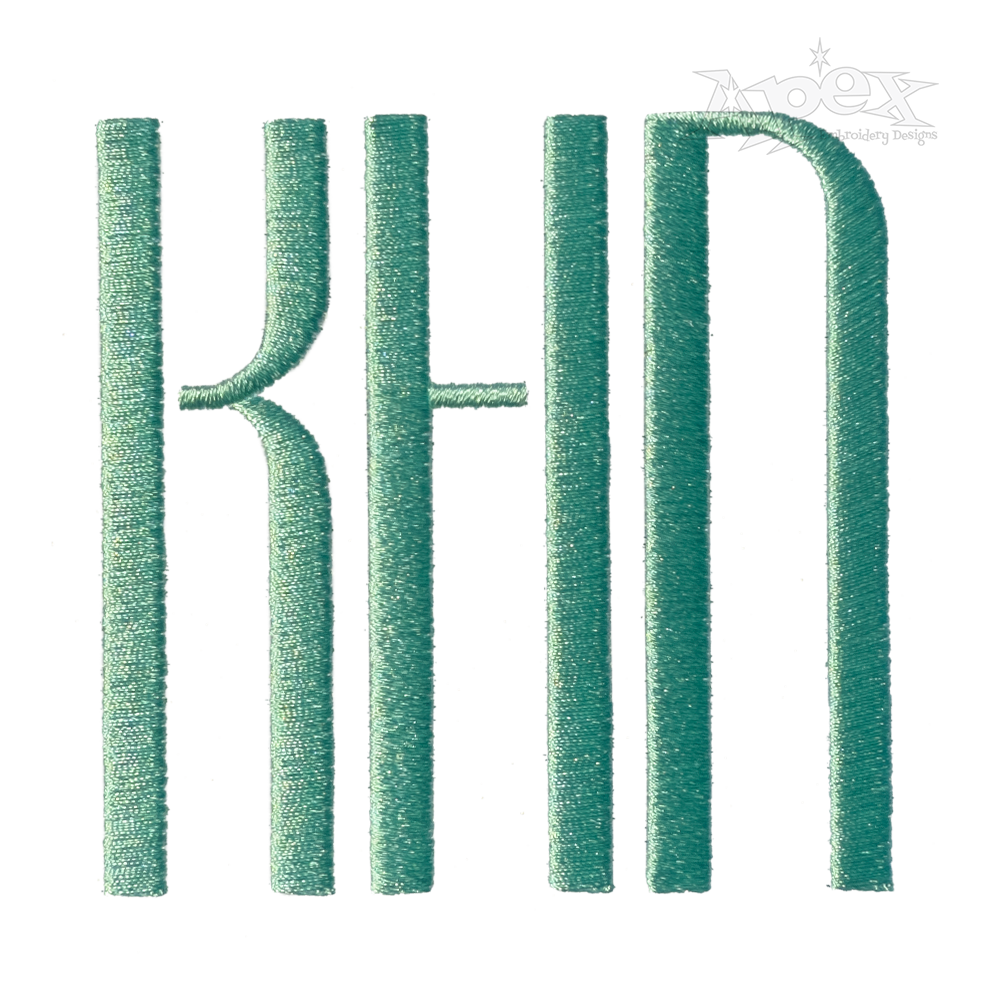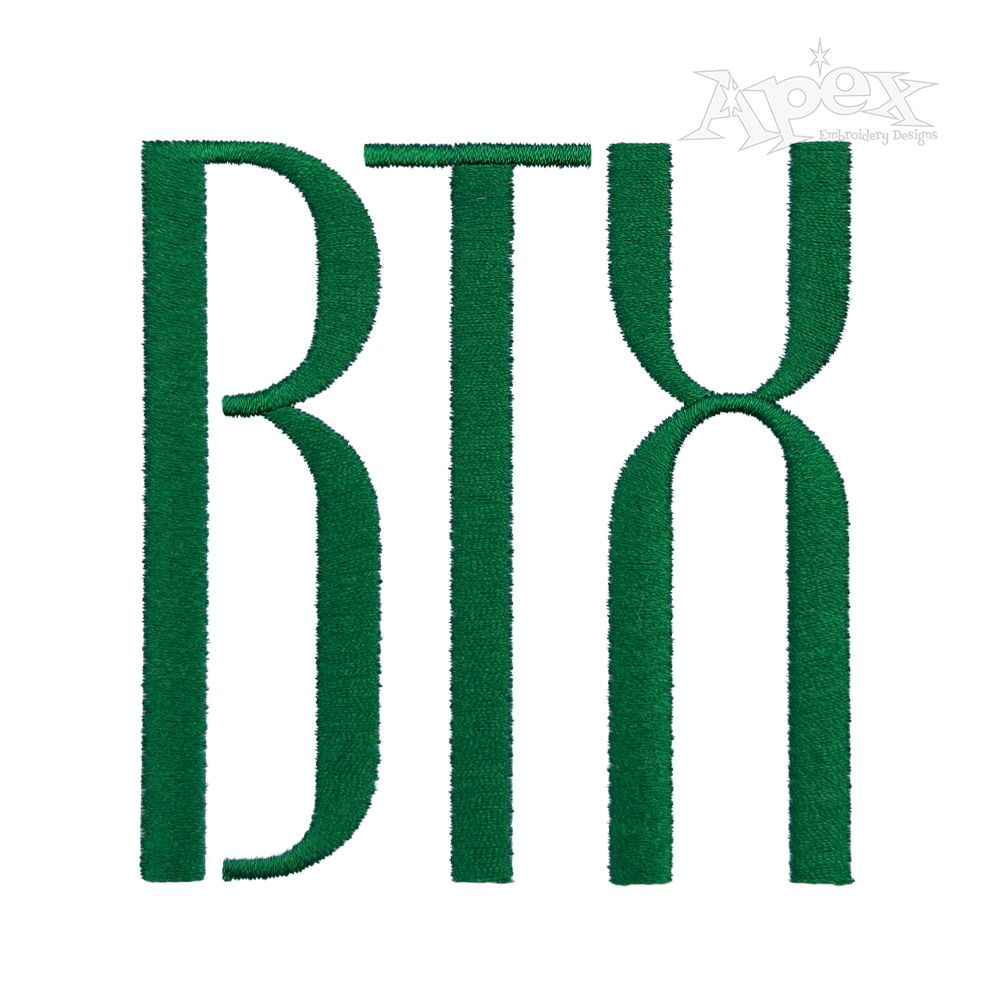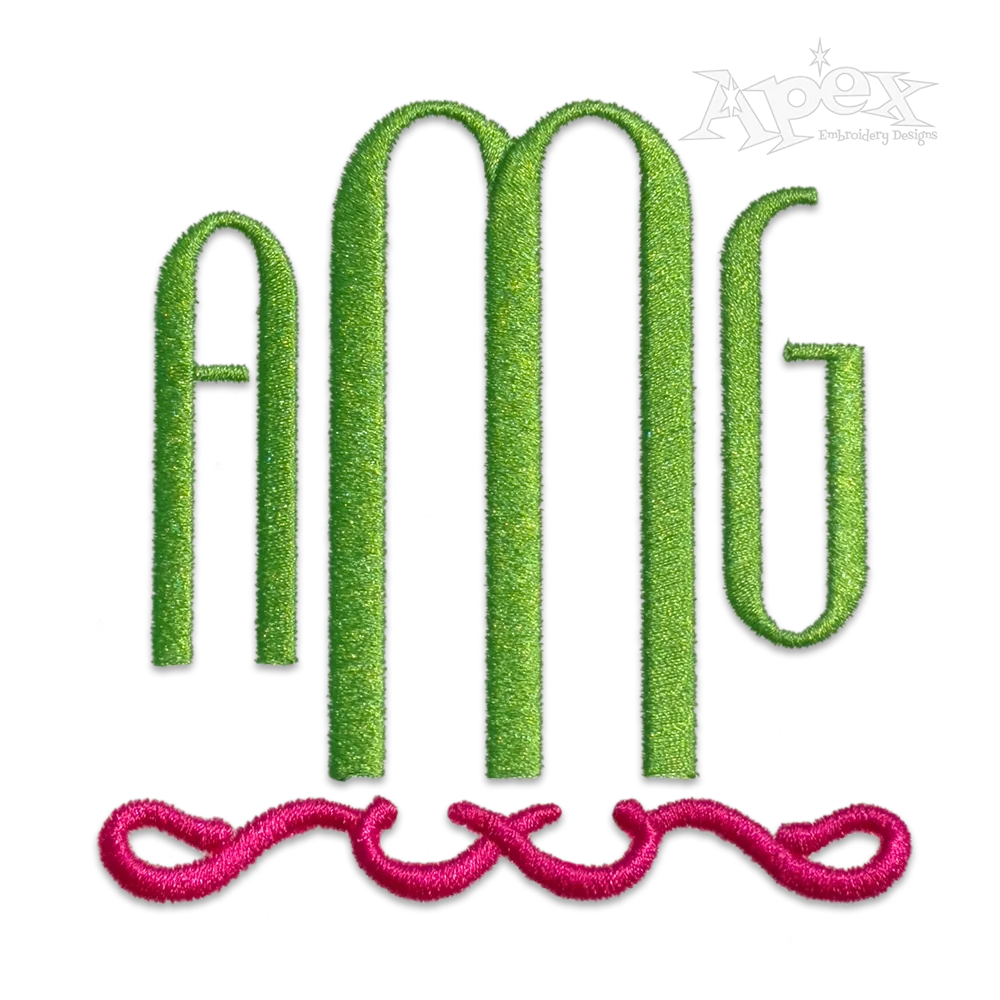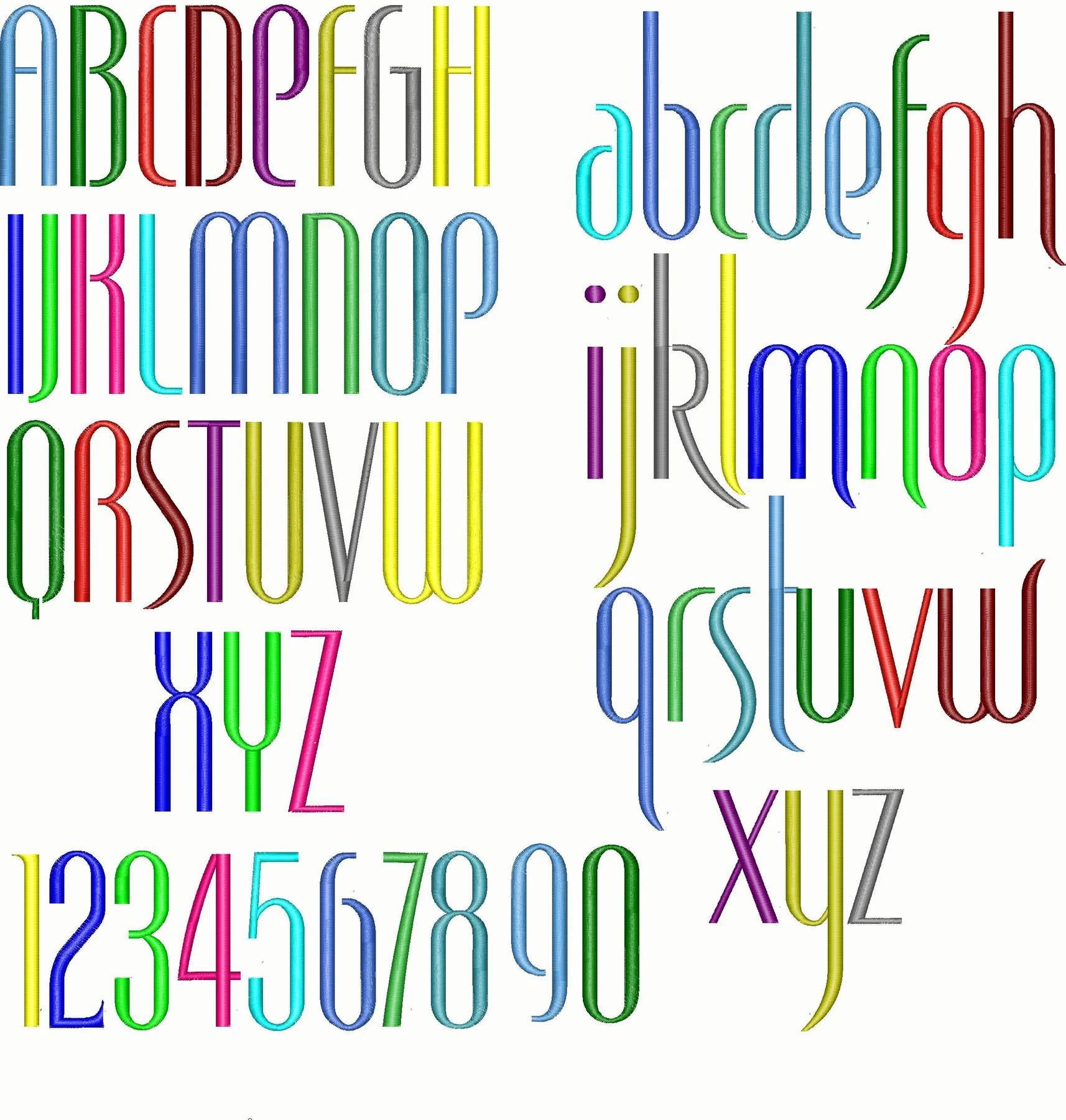
Narrow Retro Embroidery Font
Mid-century tailoring meets crisp needlework. Built for slender spaces, Narrow Retro captures vintage haberdashery charm through elongated geometry, dense satin columns, unyielding vertical rhythm. Each glyph honors classic masculine style—tailored, confident, free from fussy curls or unnecessary flourishes. Satin stitch paths flow cleanly across woven textiles, lending heirloom prestige to modern tailored garments, personalized gifting, bespoke lifestyle accessories.
Project Ideas for Narrow Retro
Slender proportions make this satin stitch alphabet remarkably versatile for custom monogramming, heirloom embroidery, personalized gifting:
- Bespoke Menswear: Monogram dress shirt cuffs, pocket bands, collar tips, suit jacket linings.
- Luxury Table Linens: Personalize crisp linen cocktail napkins, dinner runners, hemstitch placemats with understated initials.
- Heirloom Bedding: Elevate pillowcase borders, duvet corners, crisp percale sheets.
- Custom Accessories: Personalize structured canvas totes, luggage straps, golf towels, bespoke resort wear.
- Celebration Keepsakes: Stitch anniversary dates or names onto ring bearer pillows, bridal party robes, graduation gifts.
Tall, slender geometry adapts flawlessly to restricted embroidery fields:
- Cuff & Collar Placements: Position initials horizontally across left dress shirt cuff or vertically along collar edge.
- Center Chest Placement: Align two or three letters stacked vertically or spaced narrowly across center chest on polo shirts and knit pullovers.
- Corner Diagonal Alignment: Angle three initials across napkin or handkerchief corner for refined table setting presentation.
- Vertical Border Bands: Run lettering down side borders of canvas utility totes, ribbon accents, towel plackets.
Narrow Retro Craft & Letterform Details
Digitizing ultra-narrow typography demands strict pull-compensation control plus balanced stitch density. Standard wide fonts crowd tight garment areas; Narrow Retro solves spatial limits by stretching glyph height while tapering horizontal footprint. Smooth vertical satin stitch columns produce rich, tactile dimension without puckering lightweight fabrics. Crisp sans-serif terminals finish each stroke with sharp definition. Numeric characters echo letterform proportions precisely, maintaining cohesive rhythm across multi-letter monograms, commemorative dates, tailored initial sets.